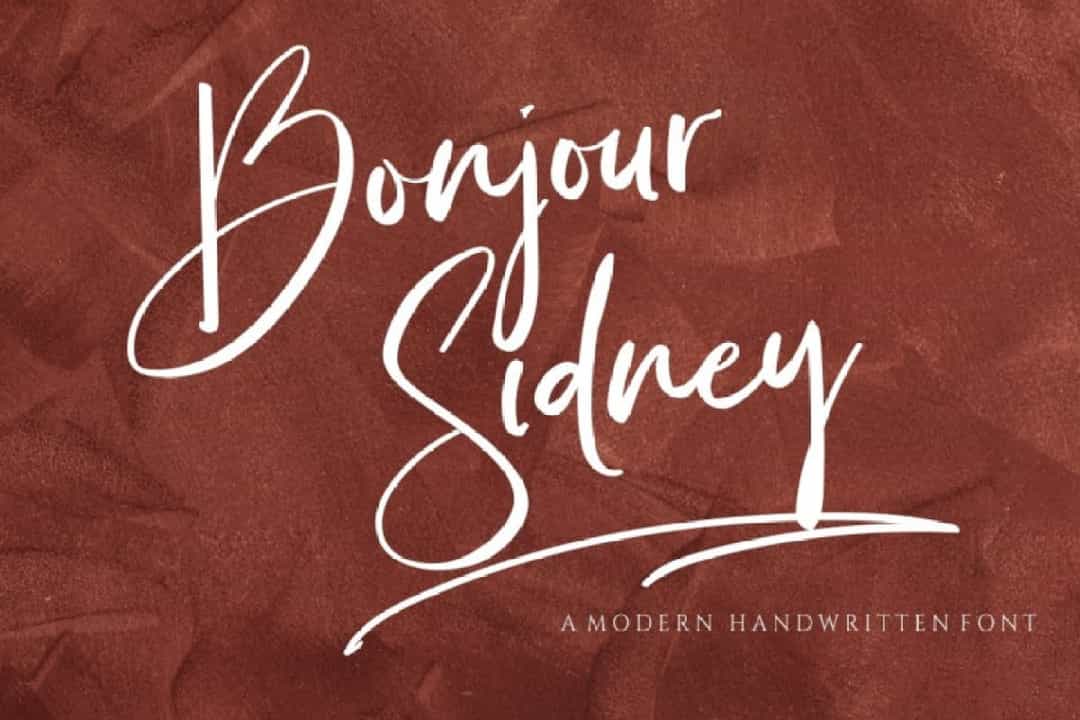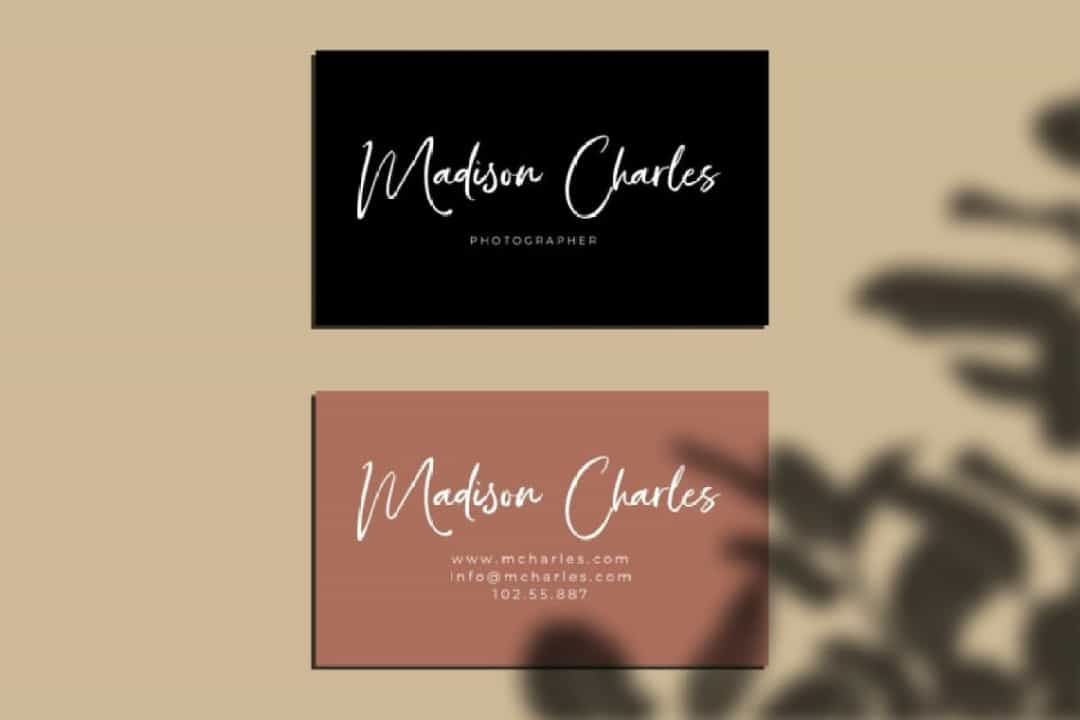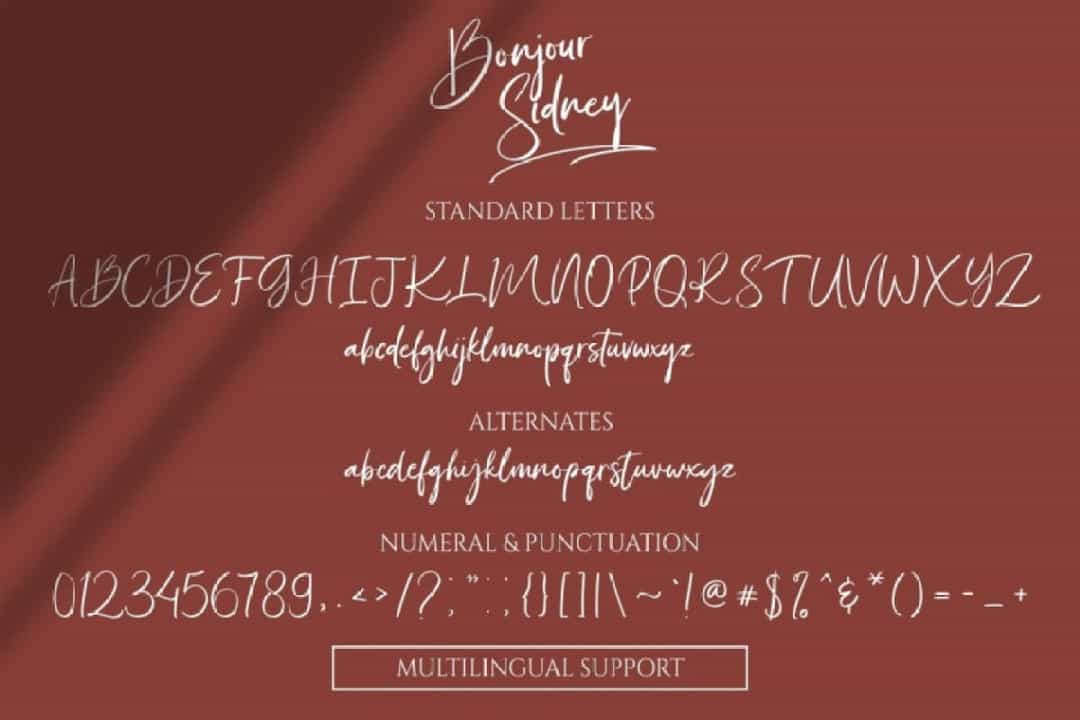
Discover Bonjour Sidney Font, part of the Handwritten Script Personal collection—a versatile and unique font perfect for adding a personal touch to your projects. Download it for free and enjoy crafting designs with style, from invitations to social media posts. This font is available exclusively for personal use, giving you the freedom to create without limits. Unlock your creativity with Bonjour Sidney Font today!
Hello Sidney Font is another modern yet beautiful font suitable for branding materials, logos wedding invitations or social media cards overlays; featuring multilingual symbol punctuation marks numerals and Swashes (Swashes).